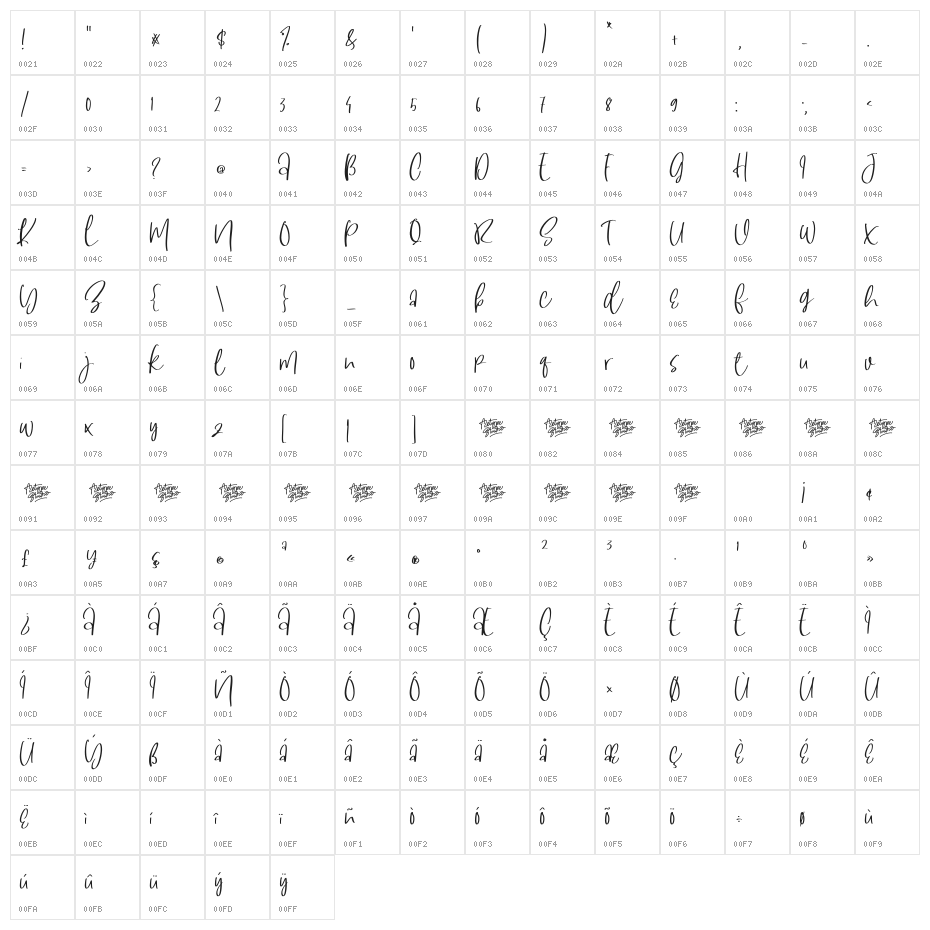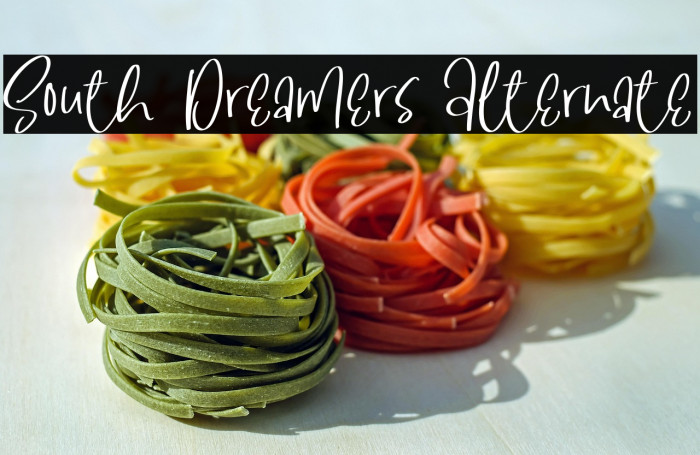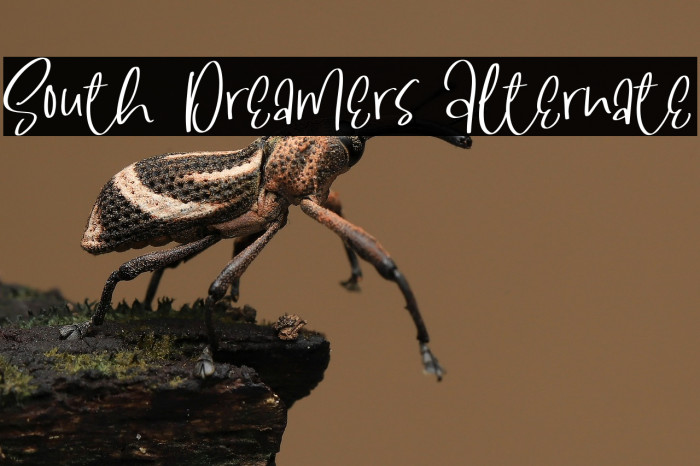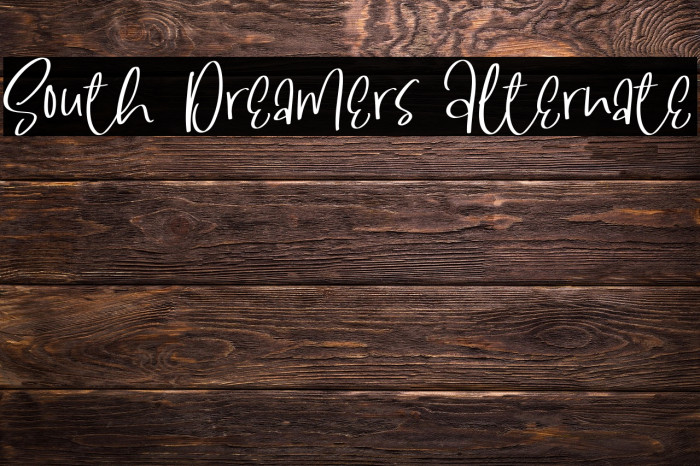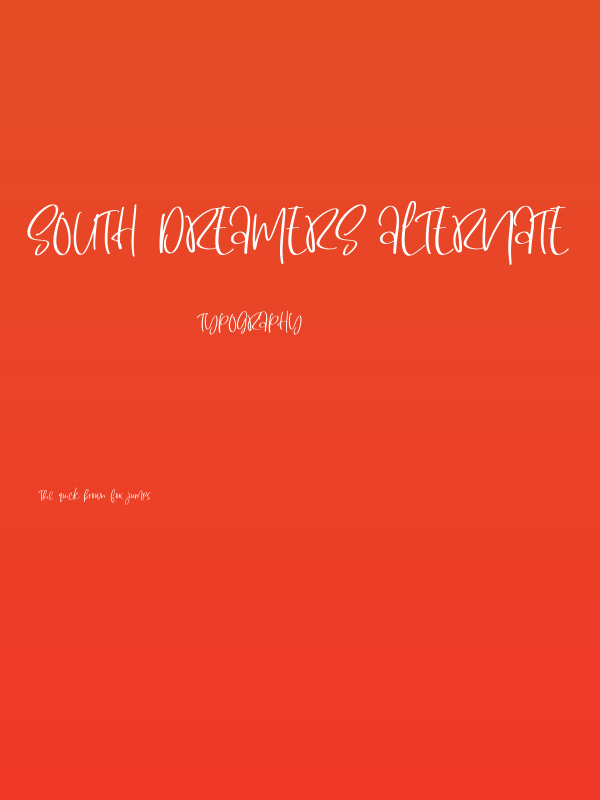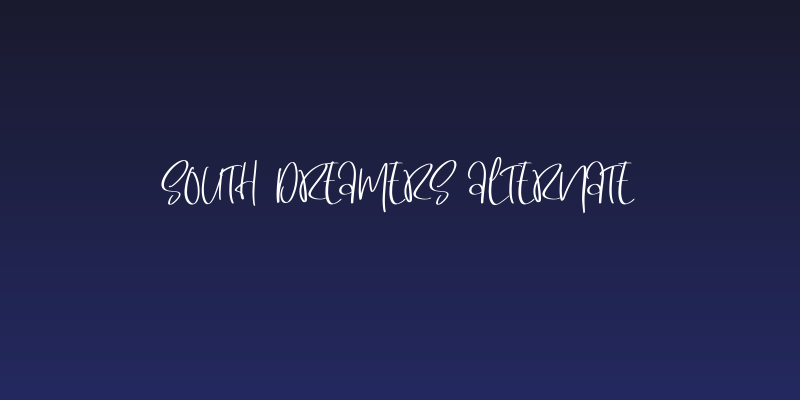
South Dreamers Alternate Font
South Dreamers Alternate Description
This font exudes a lively and expressive handwritten style, characterized by its flowing and dynamic letterforms. The uppercase letters are bold and slightly elongated, giving a sense of movement and energy. The lowercase letters maintain a consistent rhythm with a playful touch, featuring loops and curves that enhance its handwritten appeal. The numbers are clear and legible, matching the overall aesthetic with a slight slant. Special characters are creatively integrated, maintaining the font's whimsical nature. This font is perfect for projects that require a personal and artistic touch, such as invitations, greeting cards, or branding materials.